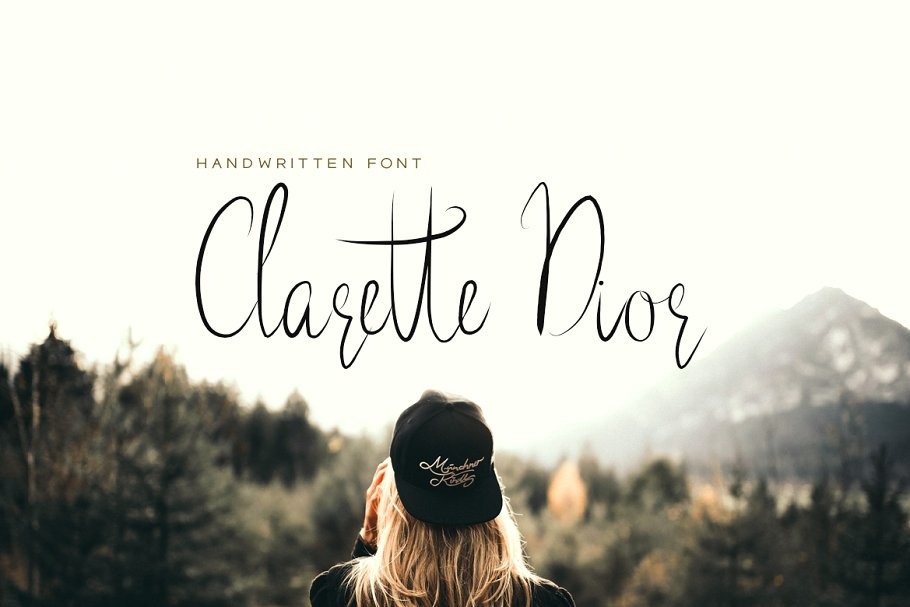
Clarette Dior Swashes Font
Clarette Dior Swashes Font is perfect for haute couture fashion branding, luxury cosmetics packaging, high-end jewelry campaigns, exclusive boutique identity, sophisticated wedding invitations, and elite beauty salon materials. Its opulent character makes it ideal for luxury fashion houses, premium perfume brands, upscale bridal services, exclusive event planning, designer handbag collections, and any project requiring Parisian elegance with haute couture sophistication and timeless luxury appeal.
This font is exciting because it embodies the ultimate expression of French luxury and fashion excellence while delivering exceptional functionality for the most discerning luxury communications. The exquisitely crafted swashes and elegant flourishes evoke the glamour of Parisian runways, exclusive fashion ateliers, and the timeless sophistication of haute couture, creating powerful emotional connections that resonate with audiences who appreciate the finest luxury experiences and uncompromising style.
The Clarette Dior Swashes Font family typically includes Regular, Bold, and ornamental variations with extensive decorative swashes, luxury flourishes, and couture-inspired ornaments that enhance its haute couture personality. This comprehensive collection provides designers with sophisticated tools for creating prestigious brand systems that maintain fashion authenticity while offering creative flexibility for various luxury applications and high-fashion market positioning strategies.